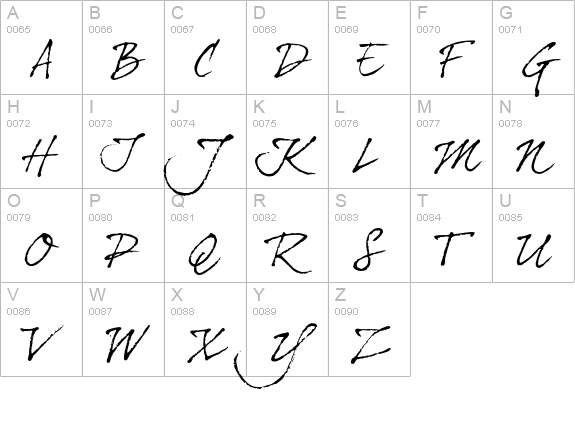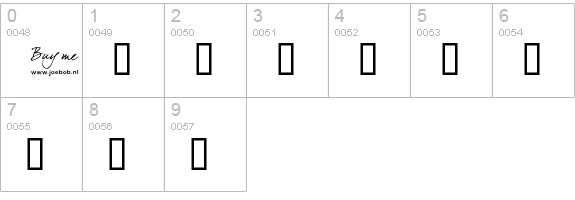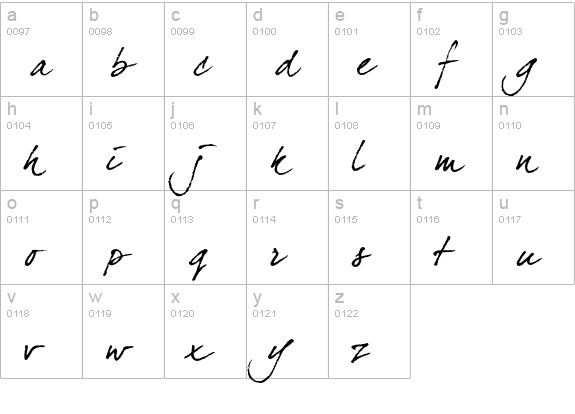
dearJoe four Font Details
Sure! Here is a long description for the dearJoe four font: "DearJoe Four is a charming and versatile font that brings a touch of whimsy to any design project. With its unique handwritten style and playful letterforms, DearJoe Four is perfect for adding a personal and friendly feel to your creations. Whether you're working on invitations, greeting cards, or branding materials, this font will make your text stand out in a delightful way. The best part is that DearJoe Four is available for free download at FontsMarket.com, making it accessible to everyone looking to add a special touch to their designs. Embrace the creativity and warmth of this font and elevate your projects with its distinctive character. Download DearJoe Four today and let your imagination run wild!" Remember to check the terms and conditions regarding the free download at FontsMarket.com.